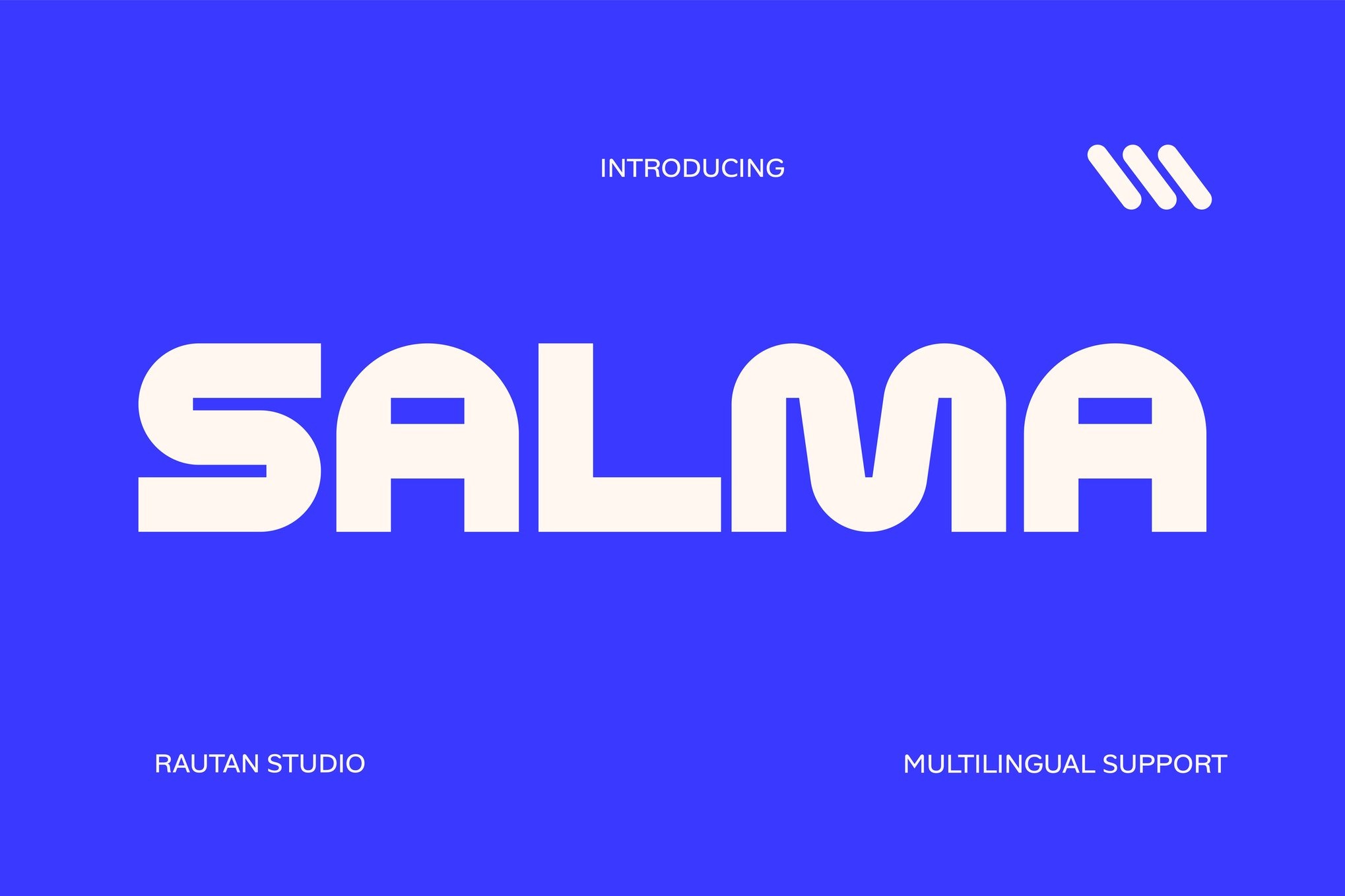
Salma – Techno Geometric Font
Salma – Techno Geometric Font is a stylish typeface that enhances visual appeal and works effortlessly in many design contexts. SALMA is a futuristic geometric tech display typeface designed for bold digital headlines, featuring rounded geometric shapes, wide proportions, and smooth modular curves that create a confident, modern visual rhythm. The structure feels clean, futuristic, and slightly arcade-inspired, making it highly suitable for gaming graphics, tech branding, digital posters, and modern UI headlines.
Its balanced geometric construction and soft rounded terminals give the letters a strong yet approachable personality. This makes SALMA ideal for designers who want a tech-forward visual identity while keeping typography readable and visually distinctive. With multilingual support for 67 languages, SALMA also works well for international branding, startup visuals, and global digital campaigns.
If your project needs bold futuristic energy, SALMA delivers a visual tone that instantly connects with gaming culture, tech startups, esports branding, arcade posters, and modern digital interfaces. The geometric shapes create high-impact headlines that stand out in thumbnails, social feeds, and app UI banners.
From YouTube thumbnails and gaming posters to tech branding and digital product launches, SALMA helps designers create typography that feels confident, energetic, and forward-looking.